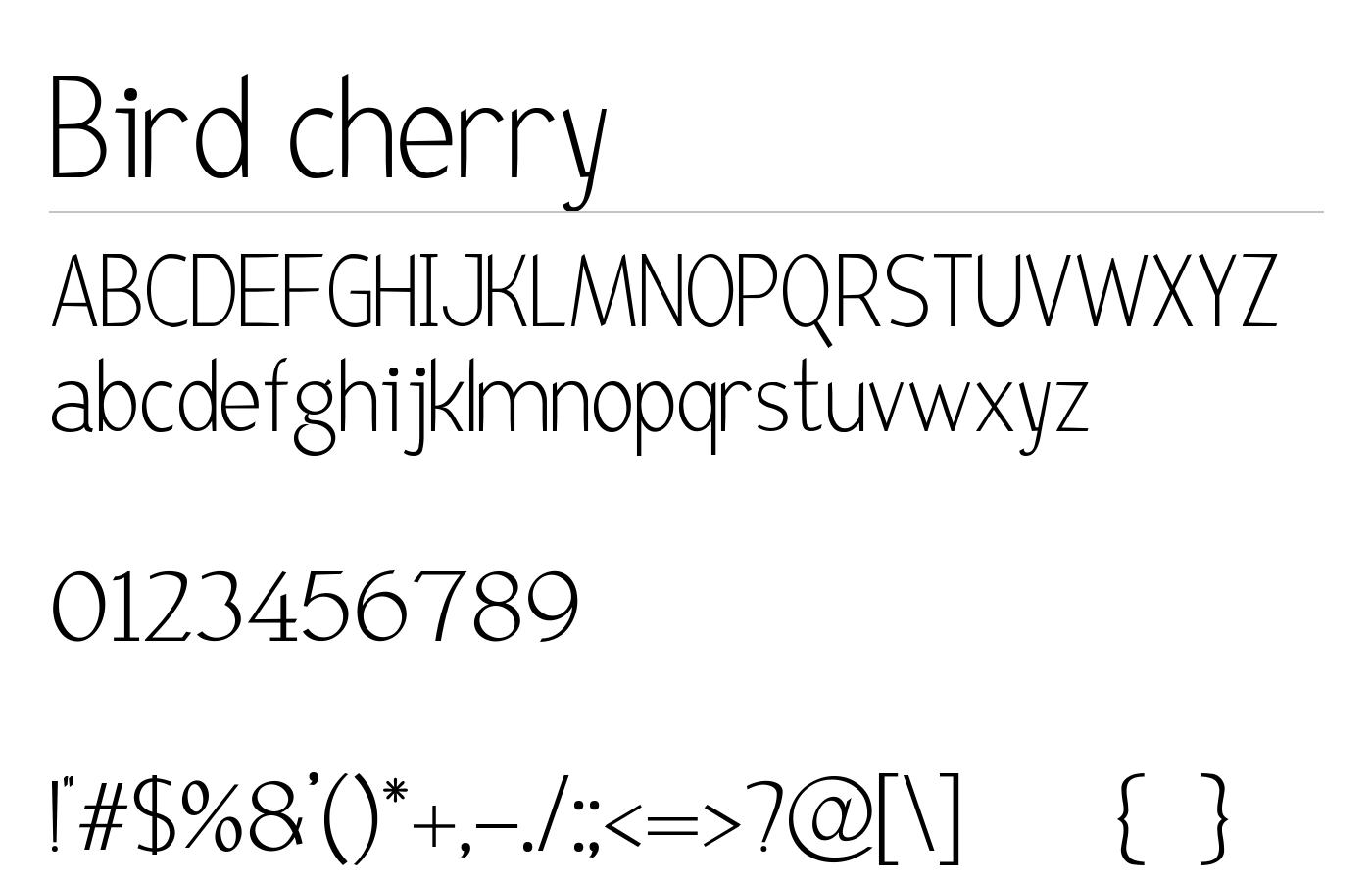
Bird Cherry is a slender sans serif font with a delicate, slightly whimsical character. Its tall x-height, low contrast strokes, and subtle curves give it an elegant yet approachable feel, making it suitable for modern, clean designs that want a touch of personality without sacrificing readability. This font works well in headlines, branding, and editorial projects where a refined but friendly tone is desired.
Bird cherry Font